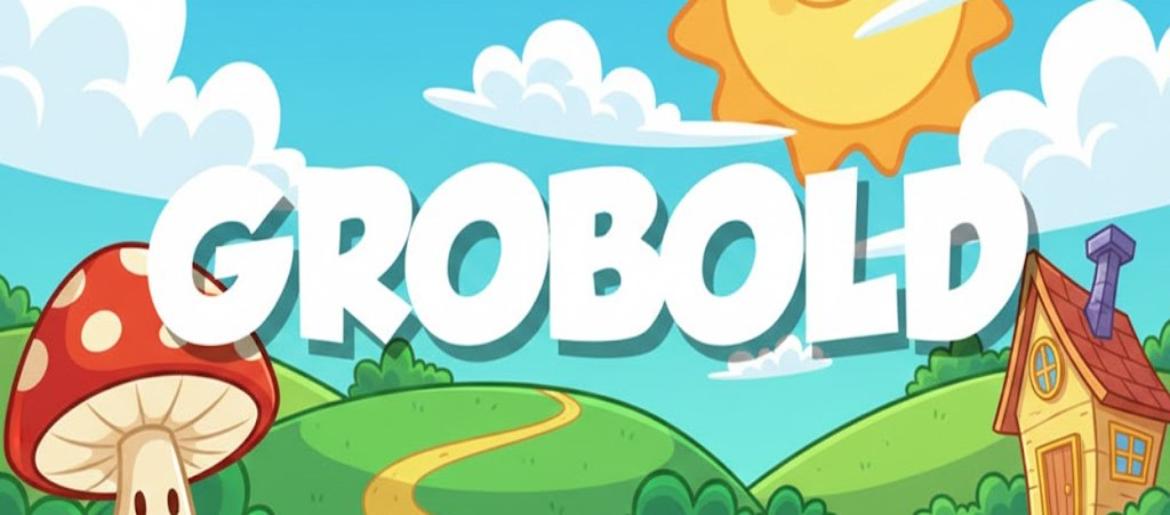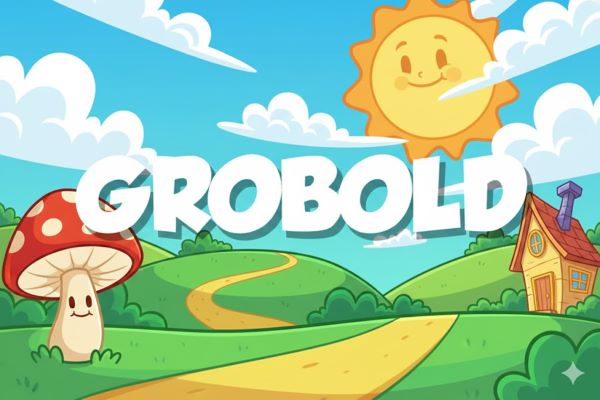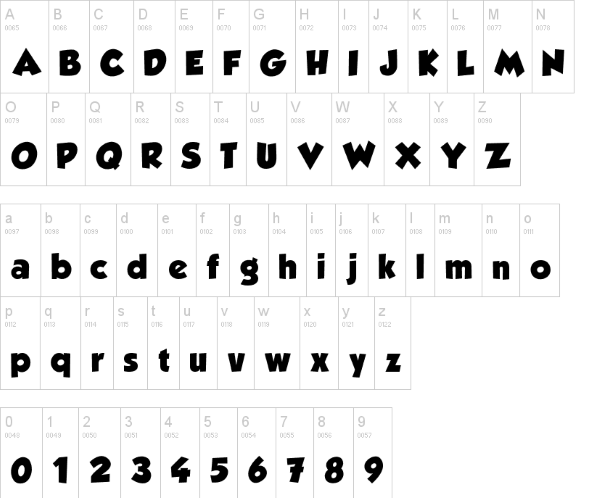
Grobold Font
Grobold font
Grobold Font is a bold cartoon-style display typeface known for its chunky letterforms and playful personality. With rounded shapes and strong visual weight, it’s perfect for kids’ designs, games, posters, logos, and fun branding. Grobold delivers high readability while adding humor, energy, and a lively character to creative projects.
➤ Font Name: Grobold
➤ Designer: Guy Buhry
➤ Style: Cartoon
Grobold font